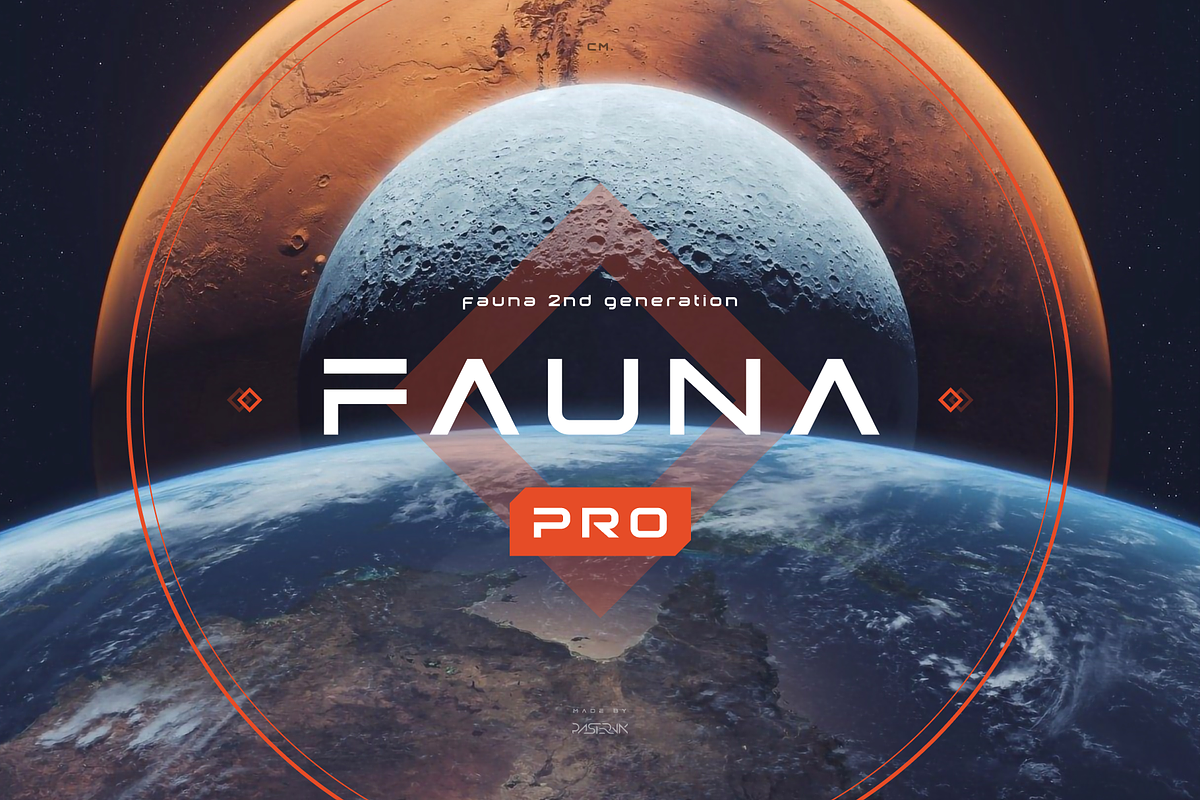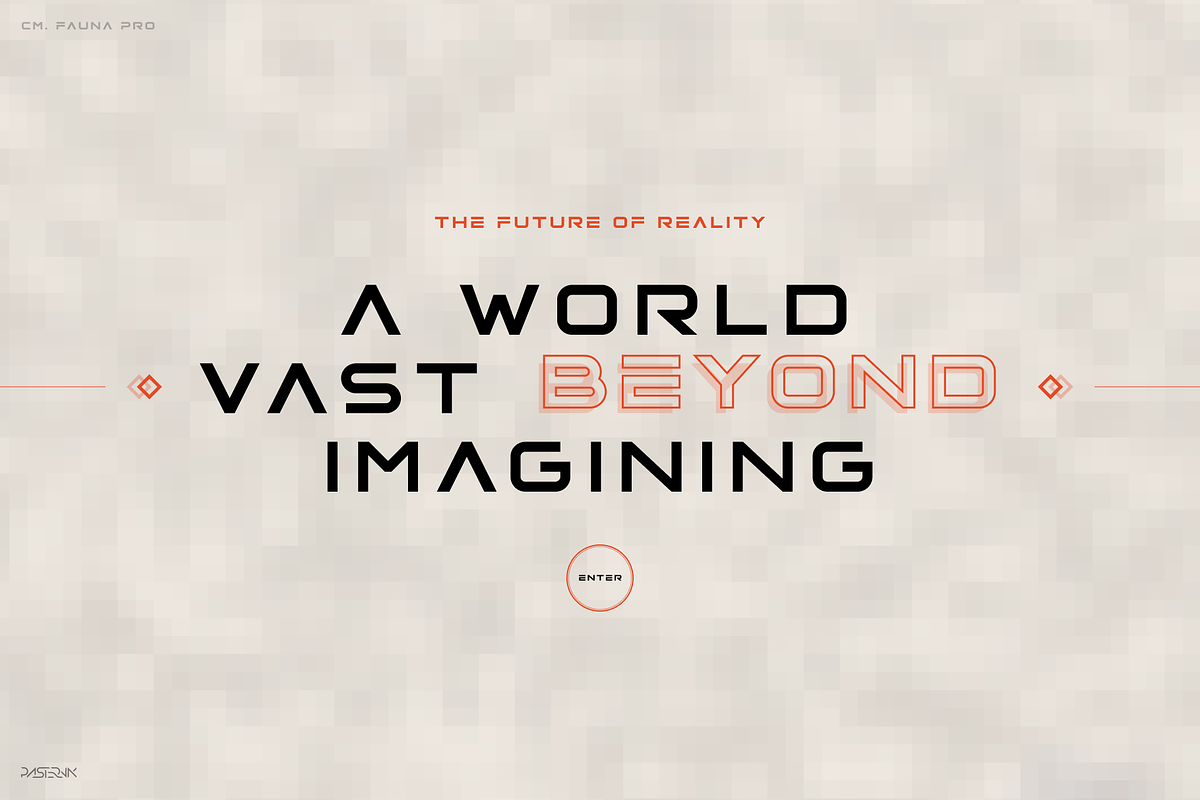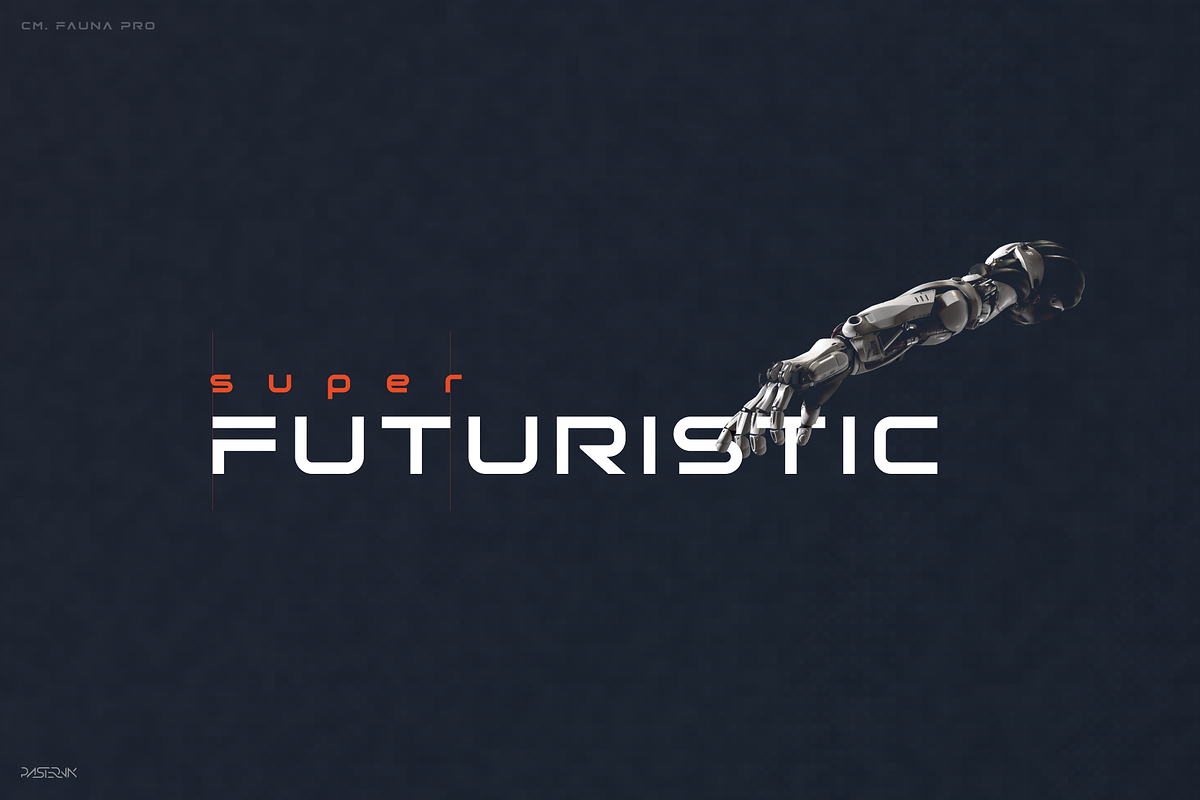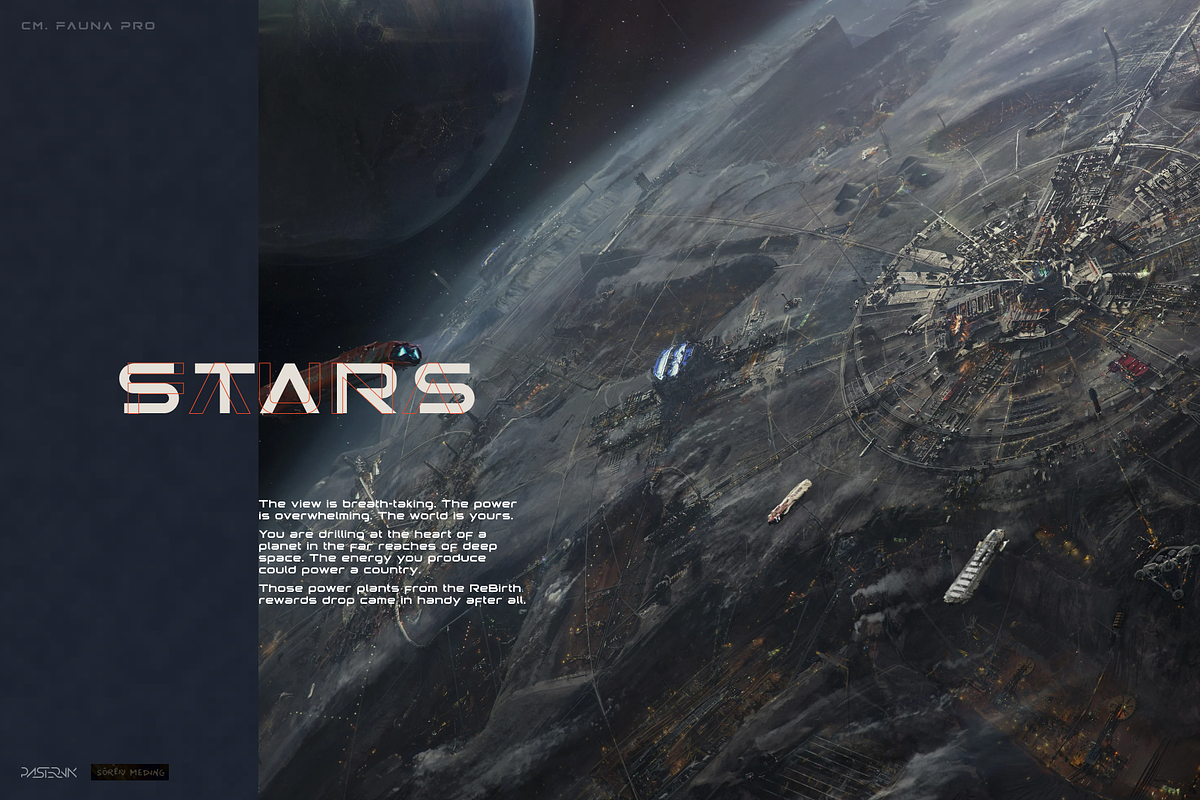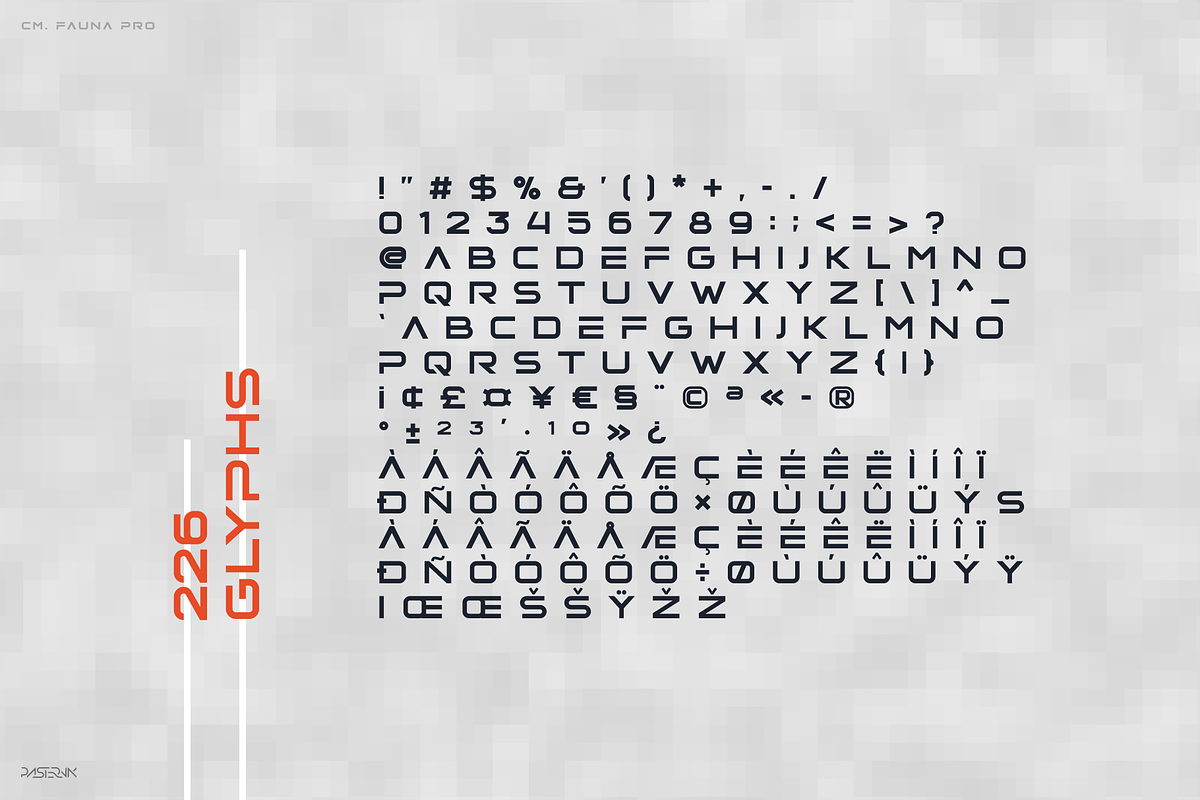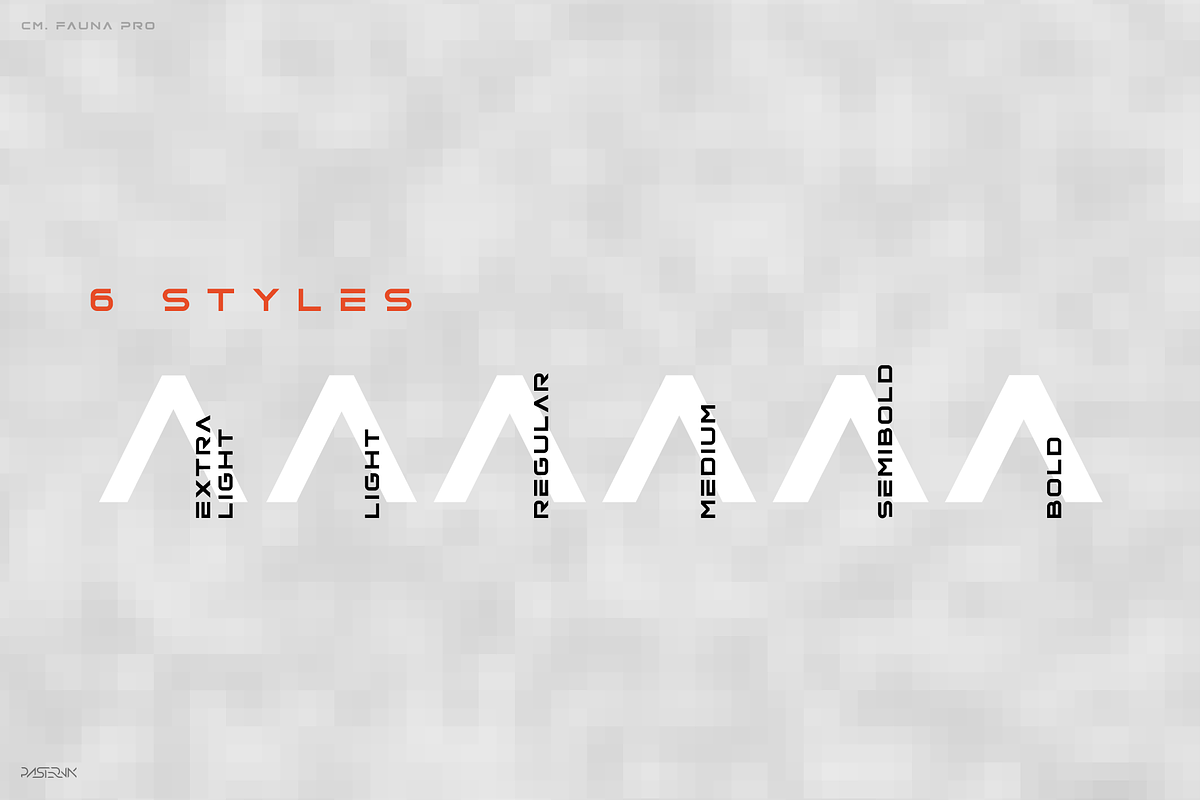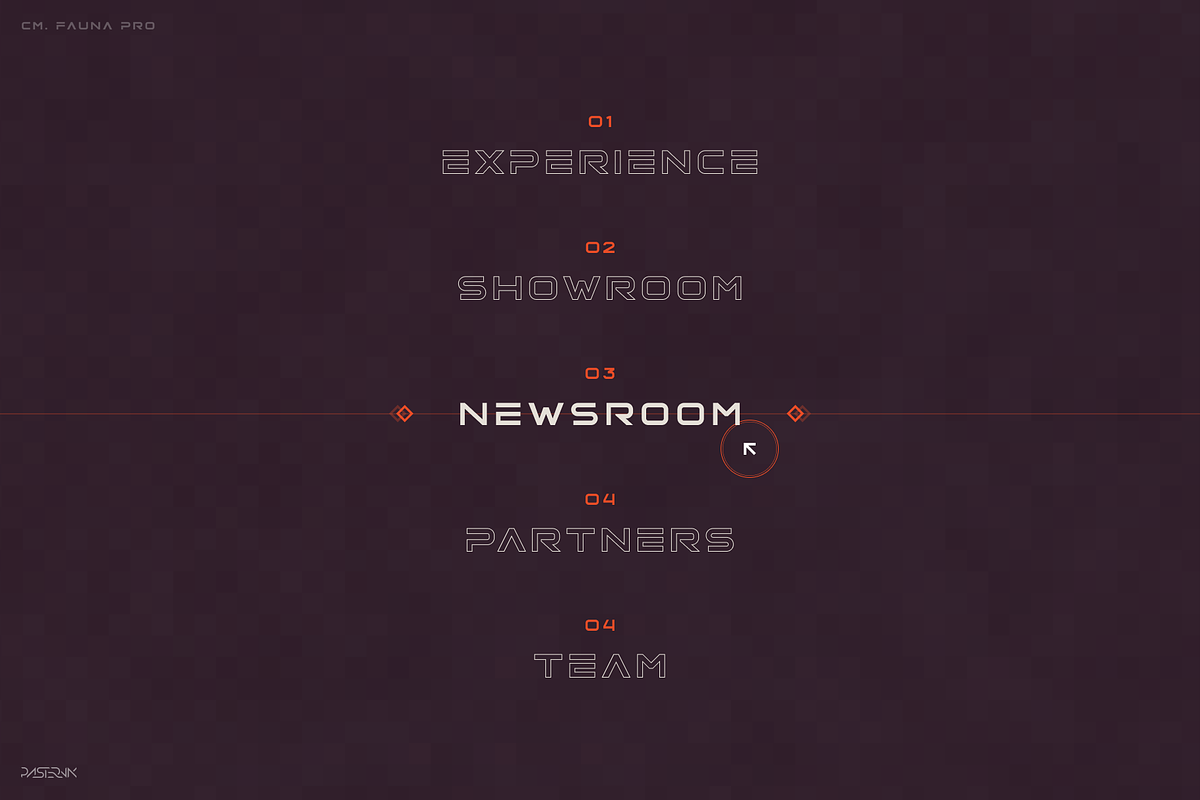
Fauna Pro
Fauna Pro is the second generation of its previous version. Now it is more futuristic with a strange sci-fi spirit. Fauna Pro has more solid contours and thick letters.
It compares with futuristic thematic, including such elements as robots, spaceships, electronics, cosmos, planets, nature, and modern architecture. Font family includes 6 font styles: extra light, light, regular, medium, semibold and bold. Every style contains 266 glyphs.